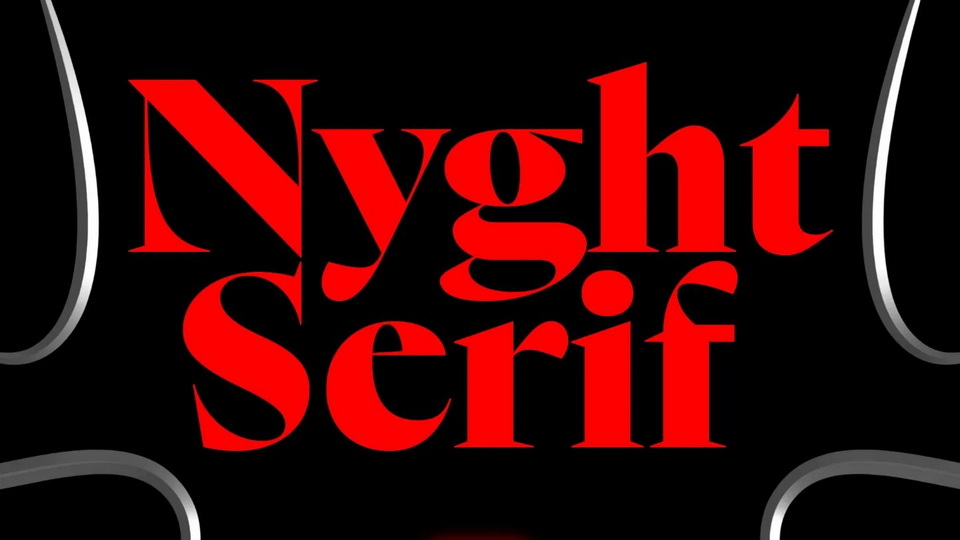
Download Nyght Serif font, a contemporary serif typeface with a spicy character. Nyght Serif featuring contrasting forms combined with smooth curves and sharp as a blade serifs and spurs.
Designer: Maksym Kobuzan